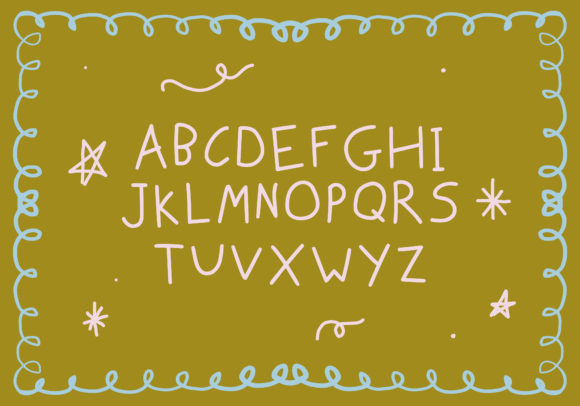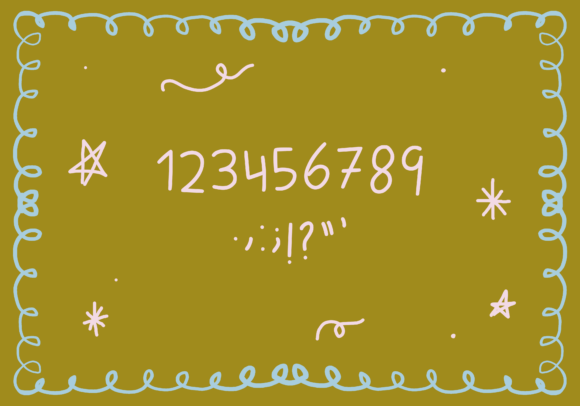
Introducing Freehand Mood Font: Add a Touch of Spontaneity to Your Designs
Are you tired of using the same old fonts that lack personality and charm? Look no further than the Freehand Mood Font, a handwritten font that captures the effortless, unrefined charm of a marker sketch on a napkin. This beautiful font is perfect for designers and crafters who want to add a layer of spontaneous joy to their layouts and create a more personal, authentic aesthetic.
The Characteristics of Freehand Mood Font
The Freehand Mood Font features a monolinear weight and a breezy, informal rhythm that gives it a unique and carefree feel. Its handwritten style is reminiscent of a quick doodle or a scribbled note, making it perfect for designs that need a touch of whimsy and personality. Unlike traditional fonts that can come across as stiff and corporate, Freehand Mood Font is the perfect antidote to rigid design.
The Benefits of Using Freehand Mood Font
So why choose Freehand Mood Font for your designs? Here are just a few benefits of using this beautiful font:
- Personal and Authentic: Freehand Mood Font has a personal, handmade feel that makes designs feel more authentic and relatable.
- Lighthearted and Playful: The breezy, informal rhythm of this font makes it perfect for designs that need a touch of humor and whimsy.
- Perfect for DIY and Crafting: Freehand Mood Font is a great fit for DIY sticker design, casual lifestyle blogs, children’s book titles, and personal social media quotes.
Best Use Cases for Freehand Mood Font
Freehand Mood Font is a versatile font that can be used in a variety of design projects. Here are some of the best use cases for this font:
- DIY Sticker Design: Add a personal touch to your stickers with Freehand Mood Font, perfect for crafters and small business owners.
- Casual Lifestyle Blogs: Give your blog a friendly, approachable feel with Freehand Mood Font, perfect for bloggers who want to connect with their readers.
- Children’s Book Titles: Add a touch of whimsy and fun to your children’s book titles with Freehand Mood Font, perfect for authors and illustrators.
- Personal Social Media Quotes: Make your social media quotes stand out with Freehand Mood Font, perfect for individuals who want to add a personal touch to their online presence.
How to Use Freehand Mood Font in Your Designs
Using Freehand Mood Font in your designs is easy. Here are a few tips to get you started:
- Pair with Other Fonts: Pair Freehand Mood Font with other fonts to create a unique and interesting contrast.
- Keep it Simple: Don’t be afraid to keep your design simple and clean, letting the font speak for itself.
| Font Name | Freehand Mood Font |
| Author | Abella Creative Studio |
In conclusion, Freehand Mood Font is a beautiful and versatile font that can add a touch of spontaneity and joy to your designs. With its monolinear weight and breezy, informal rhythm, this font is perfect for designers and crafters who want to create a more personal, authentic aesthetic. Whether you’re working on a DIY sticker design, a casual lifestyle blog, or a children’s book title, Freehand Mood Font is the perfect choice. So why not give it a try and see how it can elevate your designs?